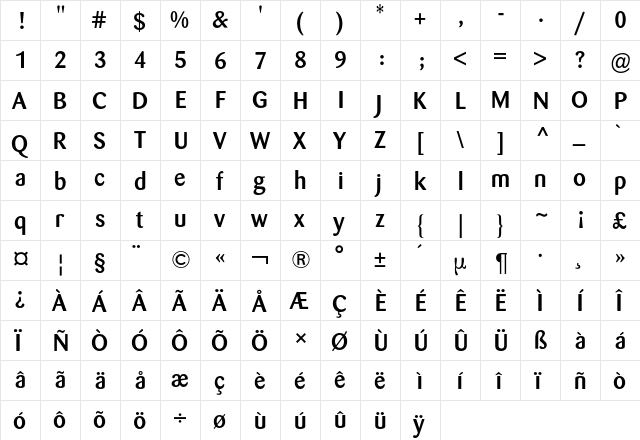
Barmeno BQ Regular
Design Context for Barmeno BQ Typeface
Barmeno BQ offers clean, dependable letterforms without strong stylistic allegiance, making it a practical choice for designers who need flexibility.
Pro Tip: Use Barmeno BQ in both headline and body roles to test its range before committing to a single application.